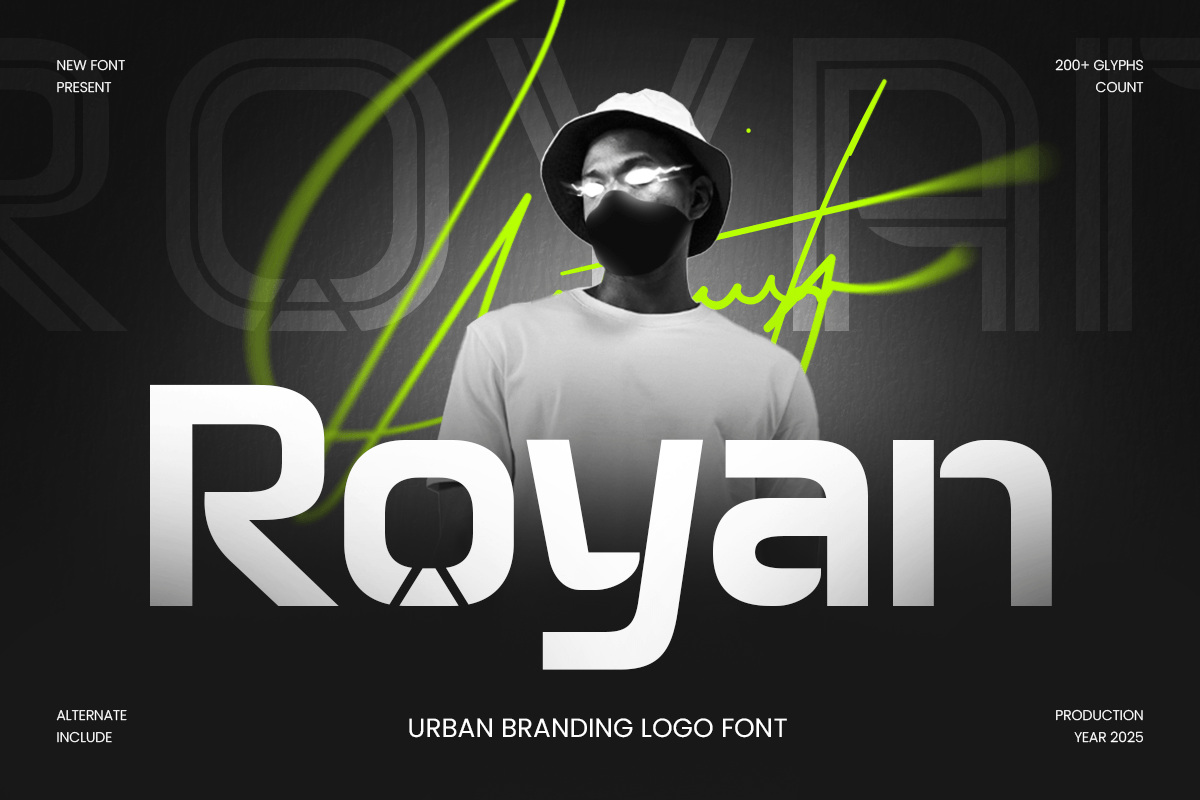
Royan
-Urban Branding Logo Font
Royan - Urban Branding Logo Font
Royan is an urban branding logo font built to deliver street-smart attitude with modern clarity. With bold shapes and confident rhythm, this typeface creates a strong visual identity that feels edgy, contemporary, and made for brands that want to stand out.
Whether you’re building a streetwear brand, a modern creative studio identity, or a bold campaign layout, Royan gives your typography the urban energy needed for memorable branding.
Inspiration Behind Royan
Royan is inspired by modern street culture and bold urban graphics—where confidence, simplicity, and impact lead the design. The font is crafted to feel tough yet clean, making it ideal for contemporary branding that needs an edgy, city-ready voice. Designed for logo design and urban branding systems, ROYAN works perfectly across labels, music visuals, event posters, product packaging, signage, and social media campaigns. Its bold presence makes headlines pop while keeping wordmarks clean, readable, and impactful in both print and digital use.
Royan – Font Features
• Bold urban letterforms built for logo and branding use
• Strong display impact with clean modern structure
• OpenType features for polished, flexible typography
• Urban logos, wordmarks, and brand identity systems
• Event branding, custom project, and merch design
• Music covers, event posters, and bold headlines
• Packaging, labels, signage, and modern promos
• Social media campaigns and digital advertising